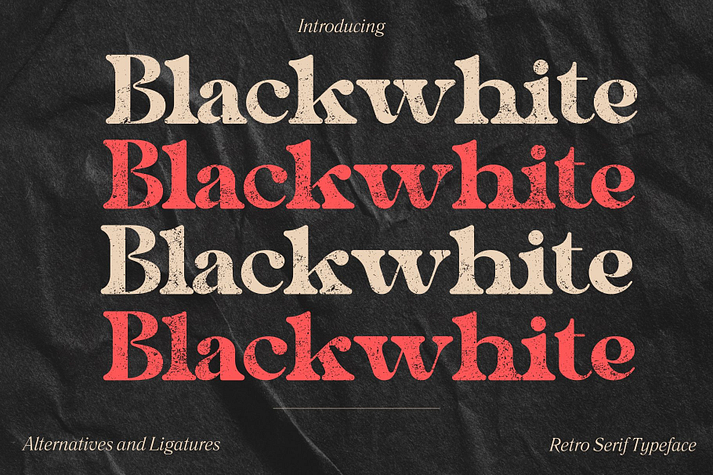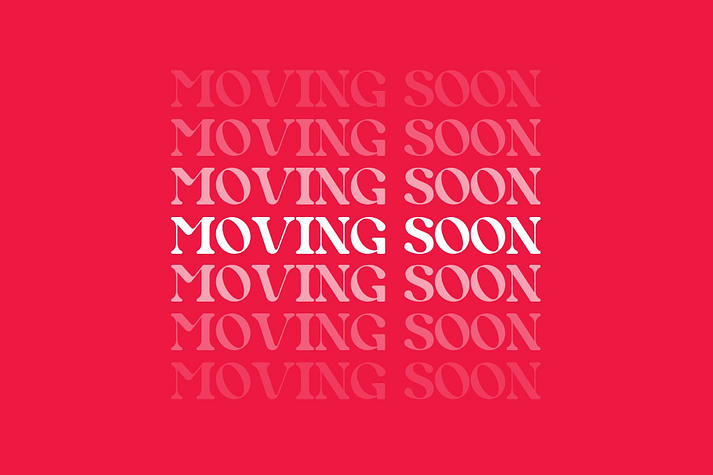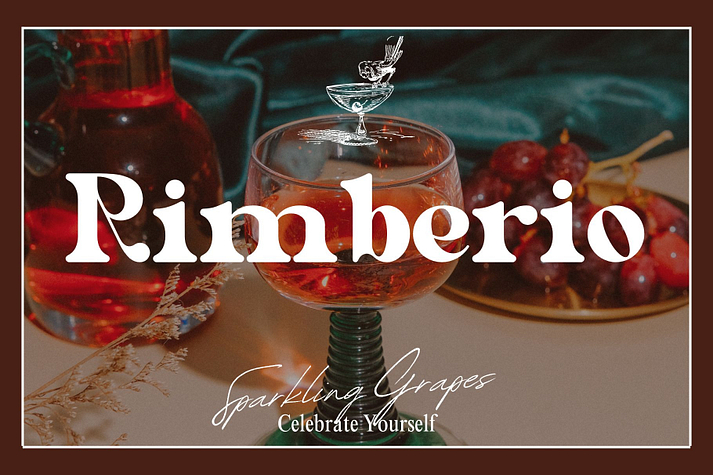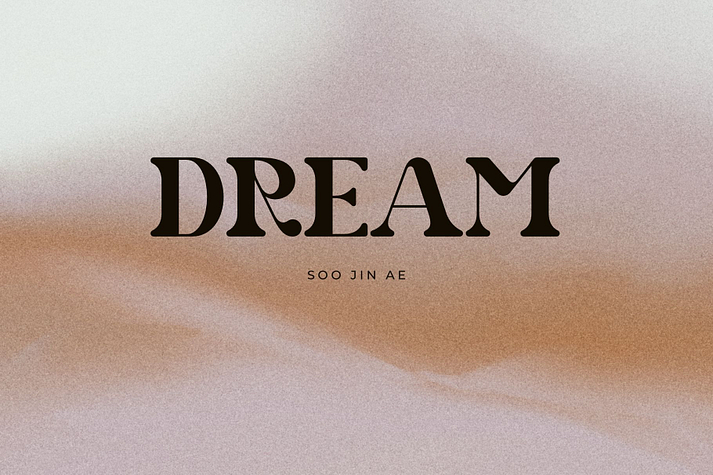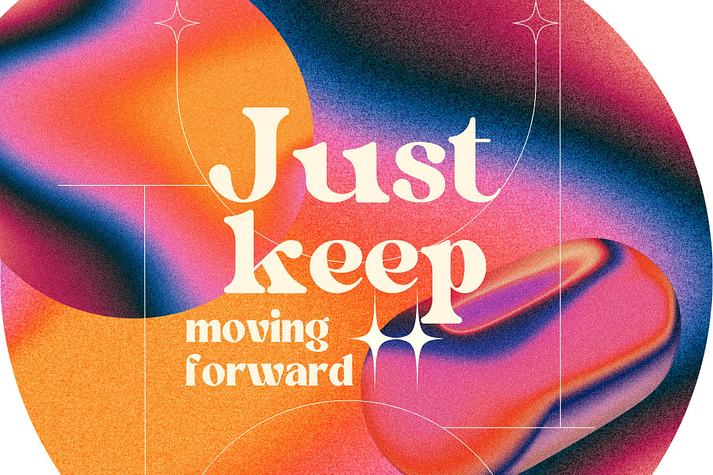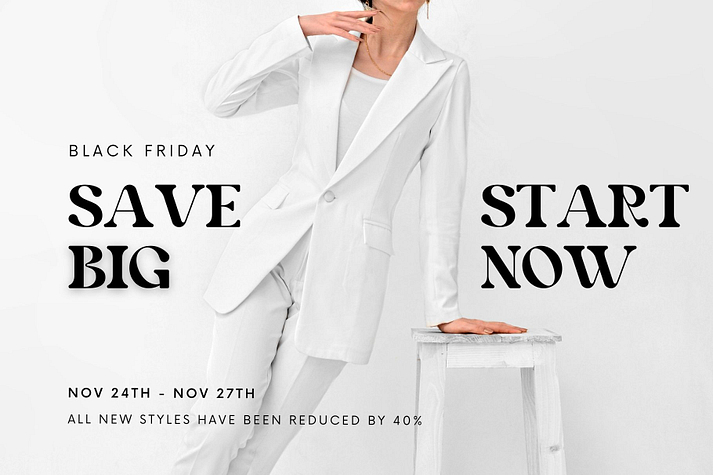
Blackwhite
Blackwhite is a retro font family published by Aditastudios.
Black white Retro Serif is a balanced, smooth, elegant, and stylish serif font. He has a beautiful character. It fits perfectly with invitation card designs, company logos, movie titles, movie names, business cards, book titles, brand names, and various other designs. Retro Serif is a subtle serif font that exudes sophistication and elegance. Its stylish alternations and ligatures make this font the perfect partner for any project.